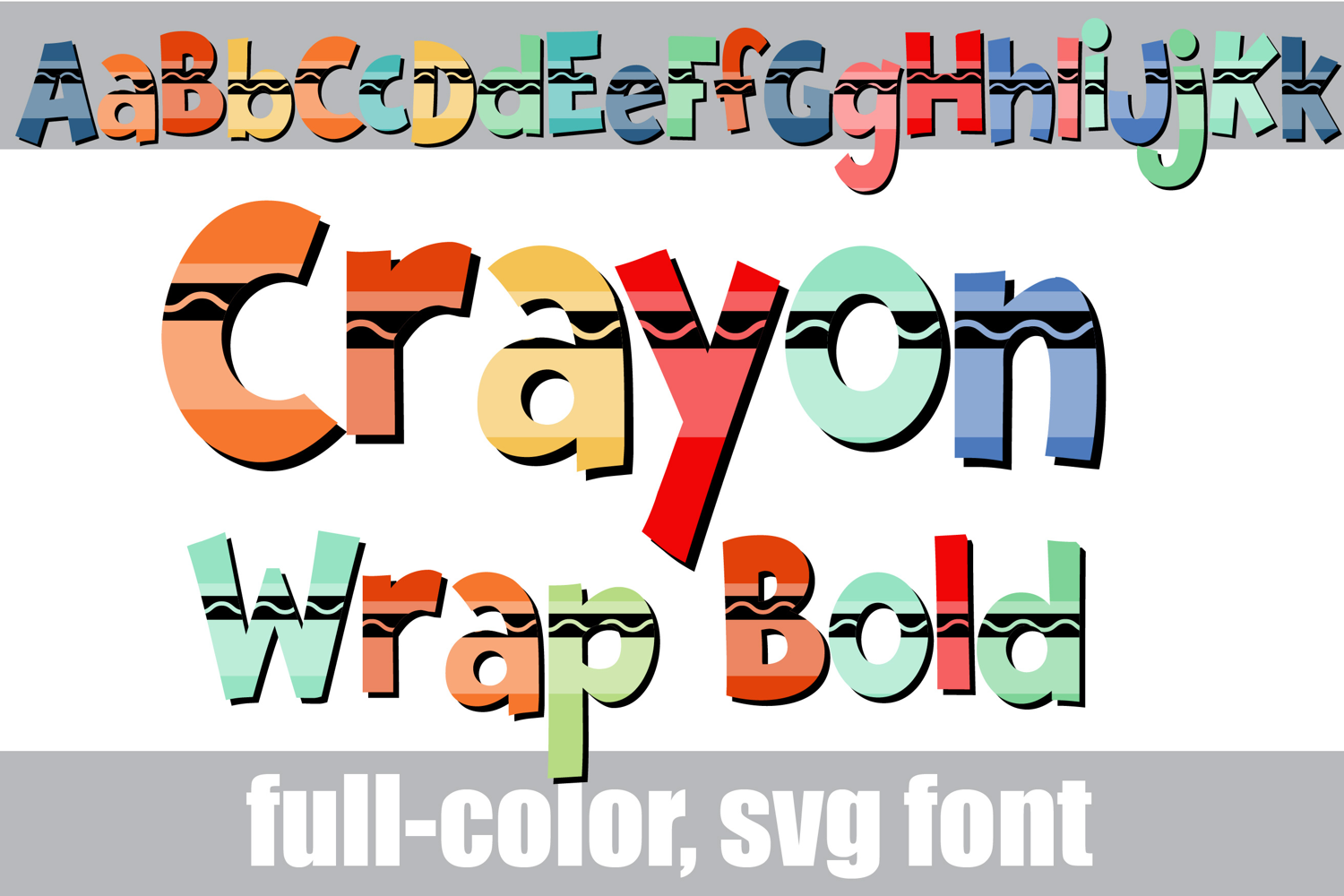
Crayon Wrapper Bold Color Font
This full-color, boldly-colored font looks like crayons. There are 2 alt case with additional colors of all the letters you can access through your system's character maps.